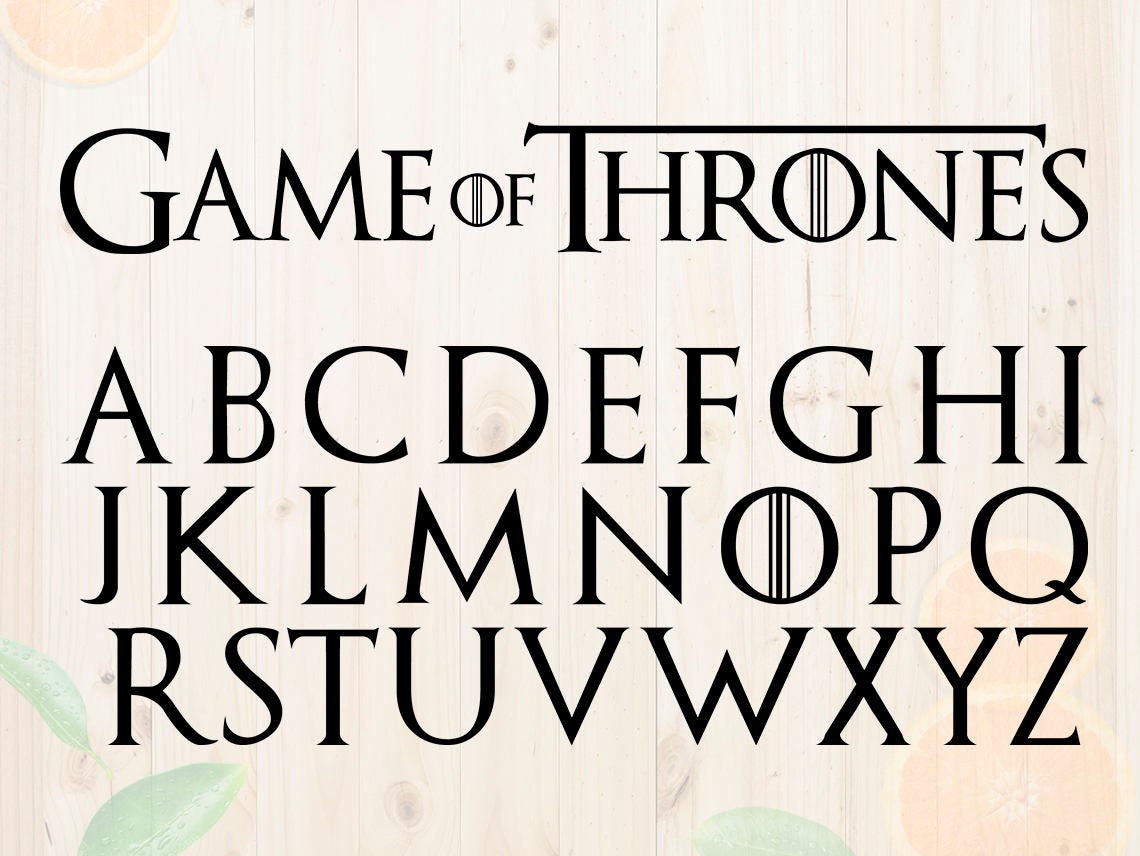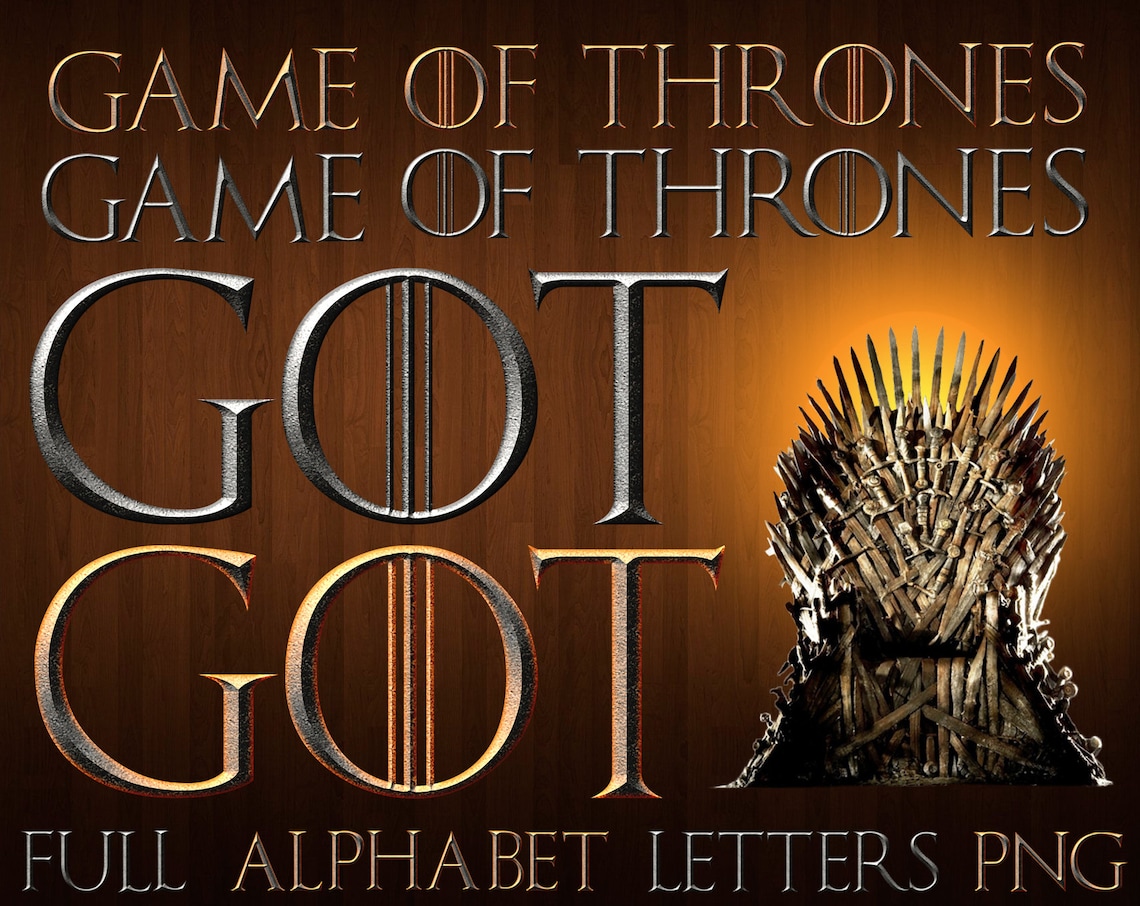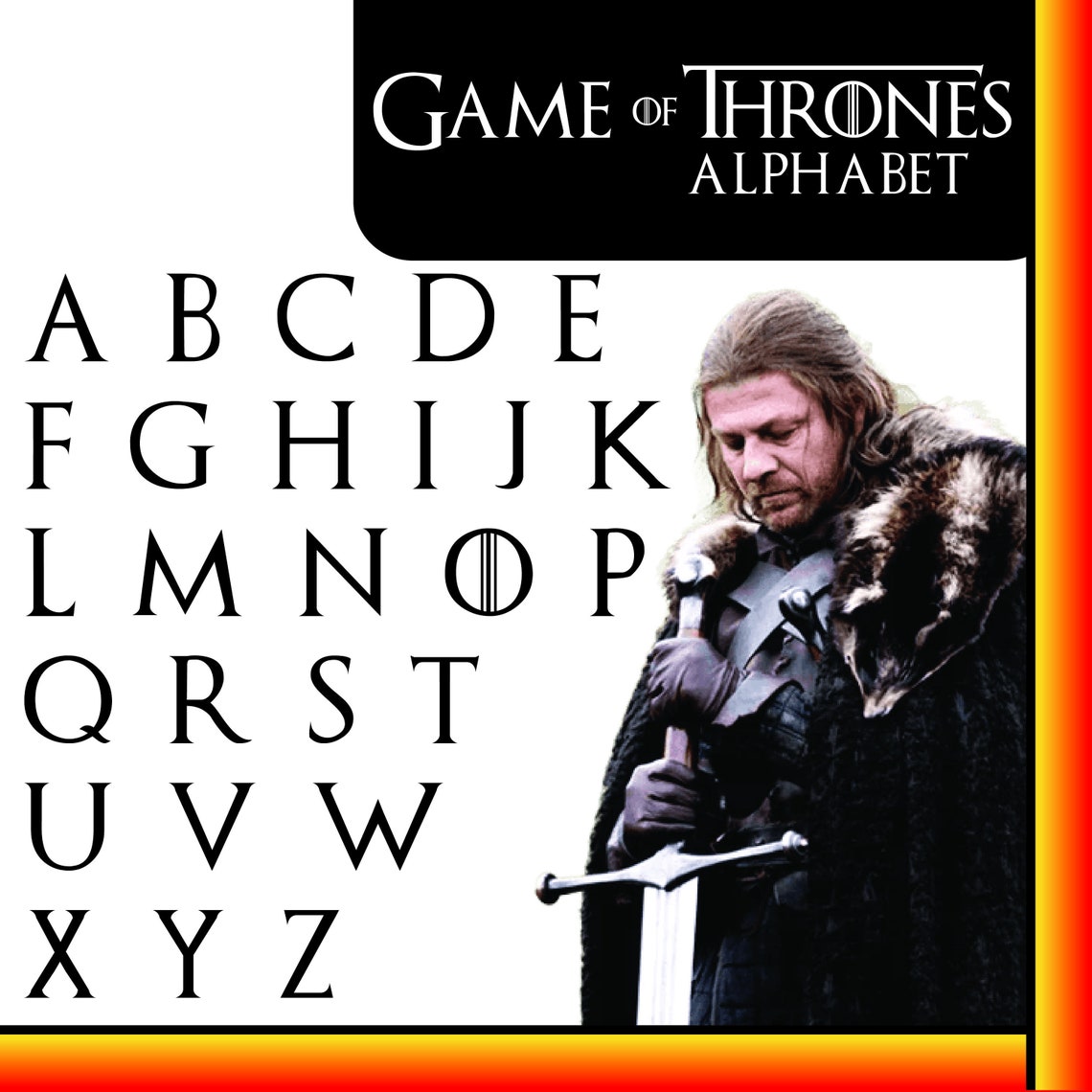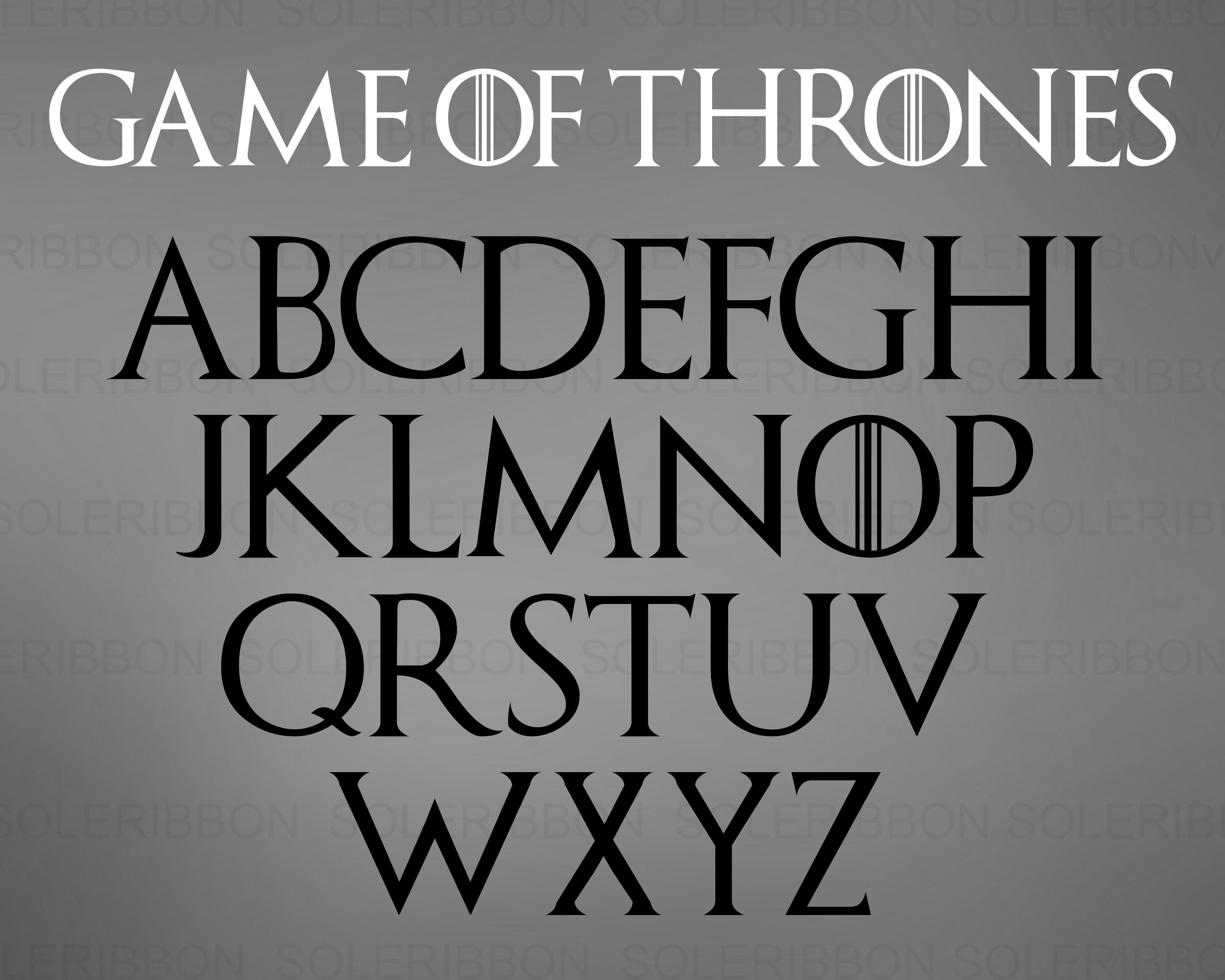
Game Of Thrones Font
Game Of Thrones Font - Game of thrones serif font. Web game of thrones is a gothic, modern font designed by charlie samways. Web download hodor download show font categories unlock the secrets of westeros with the free game of thrones fonts! Unleash your design potential today! The time is now 11:30. Web all characters were drawn again, with soho inside the leading edge to make sure compatibility between the two font households. Web looking for game of thrones fonts? Archive of freely downloadable fonts. This font is free for personal use. Know our font catalog based on one of the most illuminating series:
There are many fonts similar to the game of thrones one. The time is now 11:30. Add a touch of the seven kingdoms to your projects, and experience the magic of the iron throne. Web game of thrones font options. Here you can download yourself a copy of the game of thrones font for free. This font is free for personal use. Enter your text, select a font, choose a font size, and pick your favorite colors. Web game of thrones is a gothic, modern font designed by charlie samways. The font is licensed as free for personal use. Know our font catalog based on one of the most illuminating series:
The font is licensed as free for personal use. Web use our free game of thrones font generator tool below to create your own custom design logo or image. Another thing that you should expect is also that the fonts used to be strong and classic. There are many fonts similar to the game of thrones one. Unleash your design potential today! Web game of thrones is a gothic, modern font designed by charlie samways. Web explore game of thrones fonts at myfonts. Add a touch of the seven kingdoms to your projects, and experience the magic of the iron throne. Discover a world of captivating typography for your creative projects. Web all characters were drawn again, with soho inside the leading edge to make sure compatibility between the two font households.
Discover a world of captivating typography for your creative projects. Web all characters were drawn again, with soho inside the leading edge to make sure compatibility between the two font households. Another thing that you should expect is also that the fonts used to be strong and classic. Web game of thrones fonts. Add a touch of the seven kingdoms.
As the show features powerful families that want to gain control over the kingdoms you should expect some fights. Click to find the best 9 free fonts in the game of thrones style. Discover a world of captivating typography for your creative projects. Web download hodor download show font categories unlock the secrets of westeros with the free game of.
Web all characters were drawn again, with soho inside the leading edge to make sure compatibility between the two font households. Web game of thrones is a gothic, modern font designed by charlie samways. Unleash your design potential today! This font is free for personal use. Add a touch of the seven kingdoms to your projects, and experience the magic.
Game of thrones serif font. You can download and use the font free for personal projects. Discover a world of captivating typography for your creative projects. Web game of thrones fonts. Hit the generate button and your logo/image is created and ready to download.
Every font is free to download! Web all characters were drawn again, with soho inside the leading edge to make sure compatibility between the two font households. Web use our free game of thrones font generator tool below to create your own custom design logo or image. Immerse yourself in the world of westeros with fonts inspired by the hit.
Here you can download yourself a copy of the game of thrones font for free. You can download and use the font free for personal projects. Another thing that you should expect is also that the fonts used to be strong and classic. Web looking for game of thrones fonts? Web download hodor download show font categories unlock the secrets.